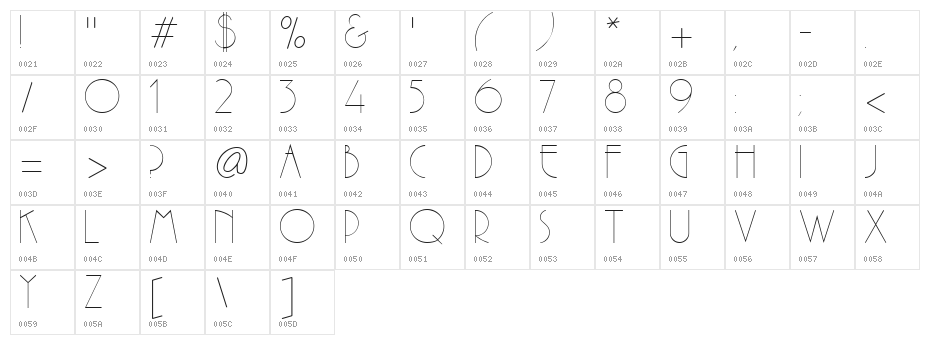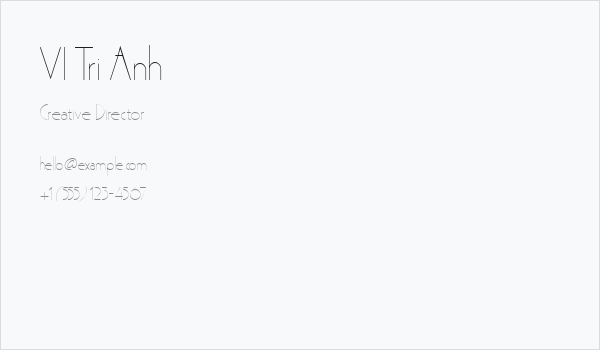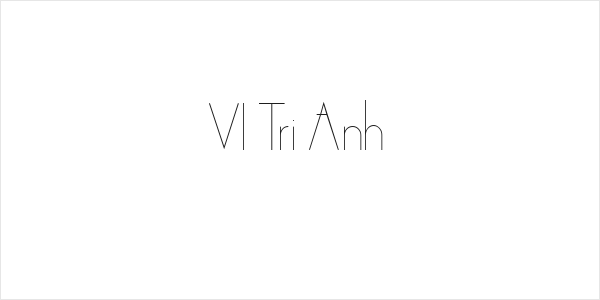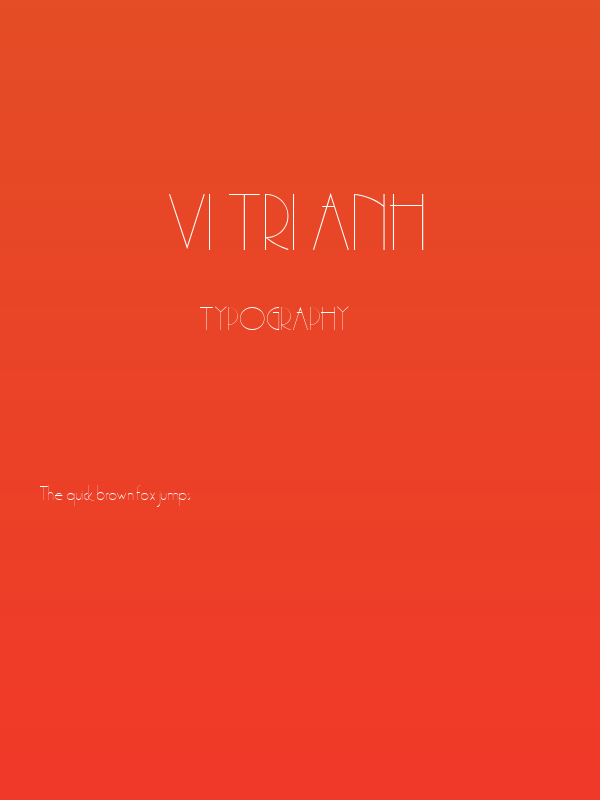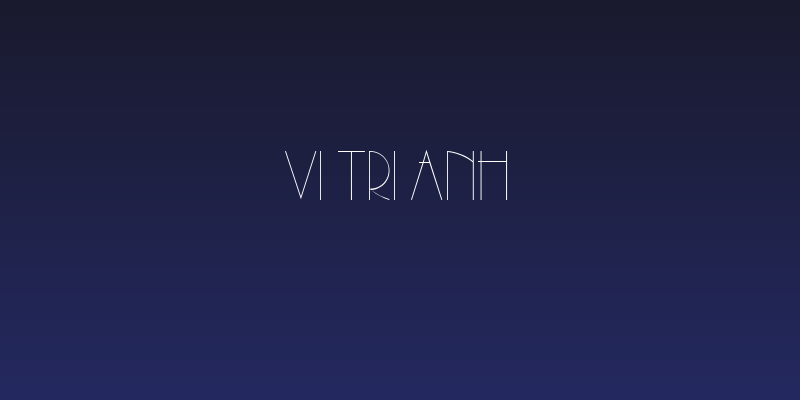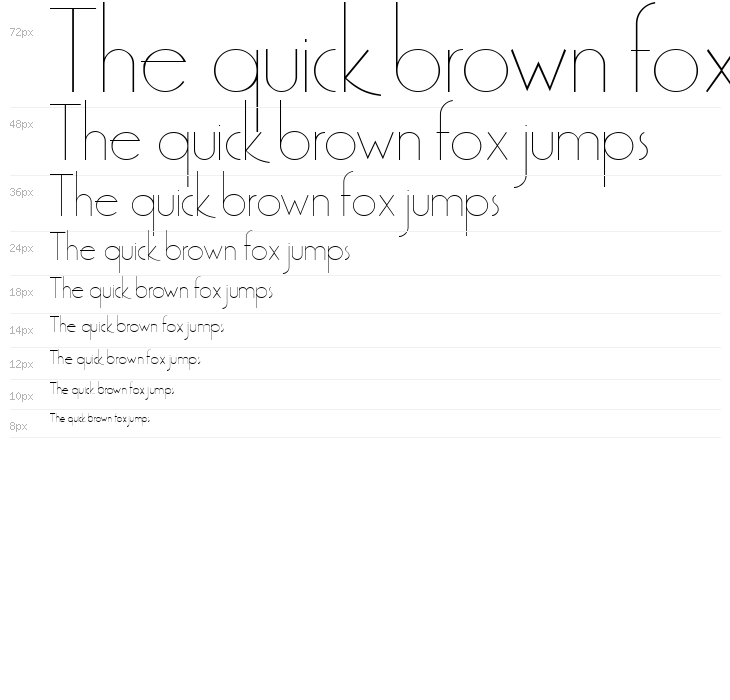
VI Tri Anh Font
VI Tri Anh Description
This font features a modern and elegant design with thin, elongated letterforms that convey a sense of sophistication and minimalism. The uppercase letters are tall and slender, with a geometric influence that adds a contemporary touch. The lowercase letters maintain a consistent style, offering a seamless transition between characters. Numbers are designed with a similar aesthetic, ensuring uniformity across all elements. Special characters are crafted with the same attention to detail, making this font versatile for various applications. The overall appearance is clean and refined, making it suitable for projects that require a stylish and modern look.
| Use Case | Logos, Headlines, Editorial design |
| Proposed Projects | Ideal for luxury branding, fashion magazines, modern art posters, and high-end product packaging. |